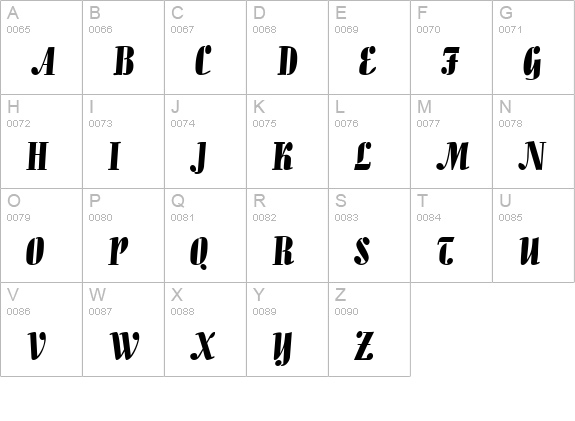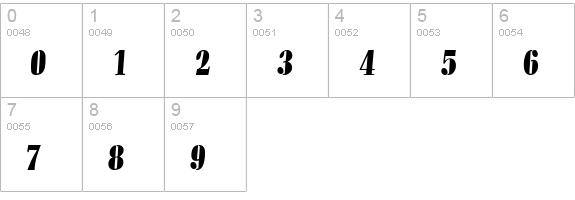
Alligator-Regular Font Details
Alligator-Regular is the standard, neutral variant in the Alligator typeface family \xE2\x80\x94 well suited to general body text, paragraphs, and standard typographic work.
Alligator-Regular is a sleek and modern font that exudes sophistication and style. Its clean lines and sharp edges make it perfect for a variety of design projects, from branding to web design. The versatility of Alligator-Regular allows it to be used in both headings and body text, adding a touch of elegance to any project. Best of all, Alligator-Regular is completely free to download at FontsMarket.com. This means that you can enhance your designs with this stunning font without breaking the bank. So why wait? Download Alligator-Regular today and take your designs to the next level.